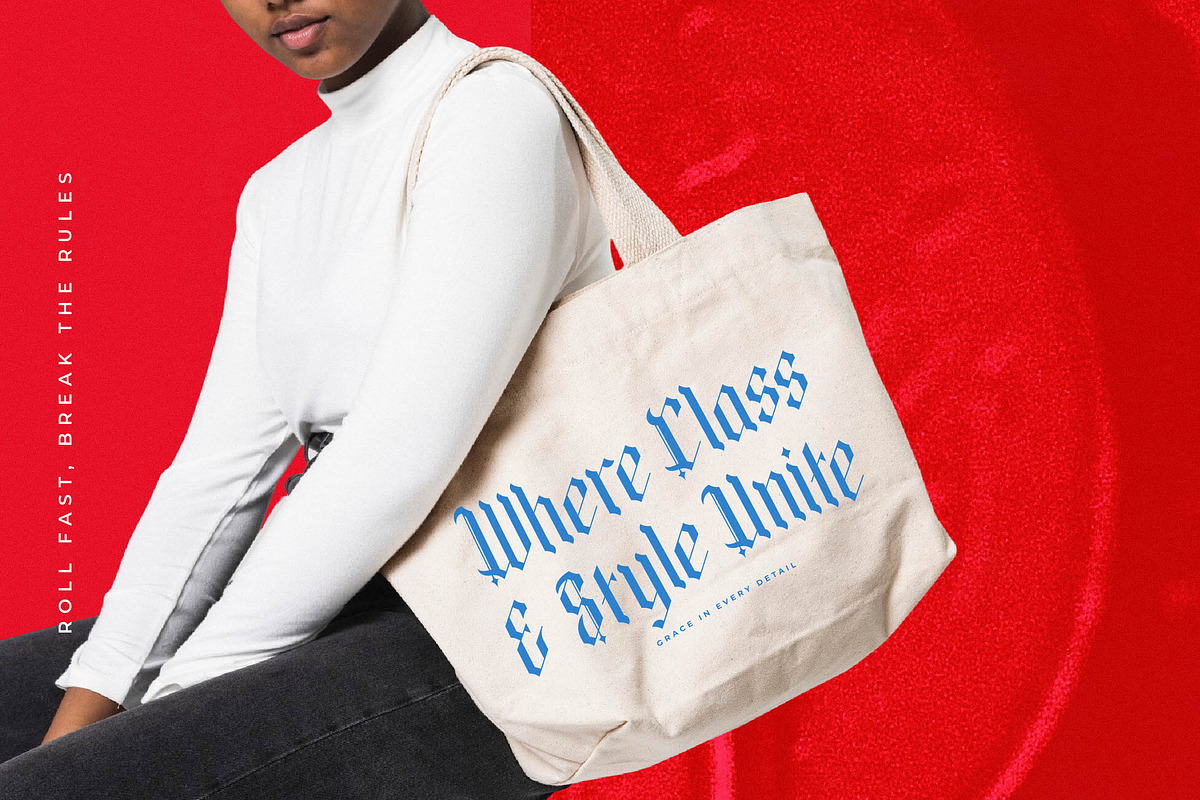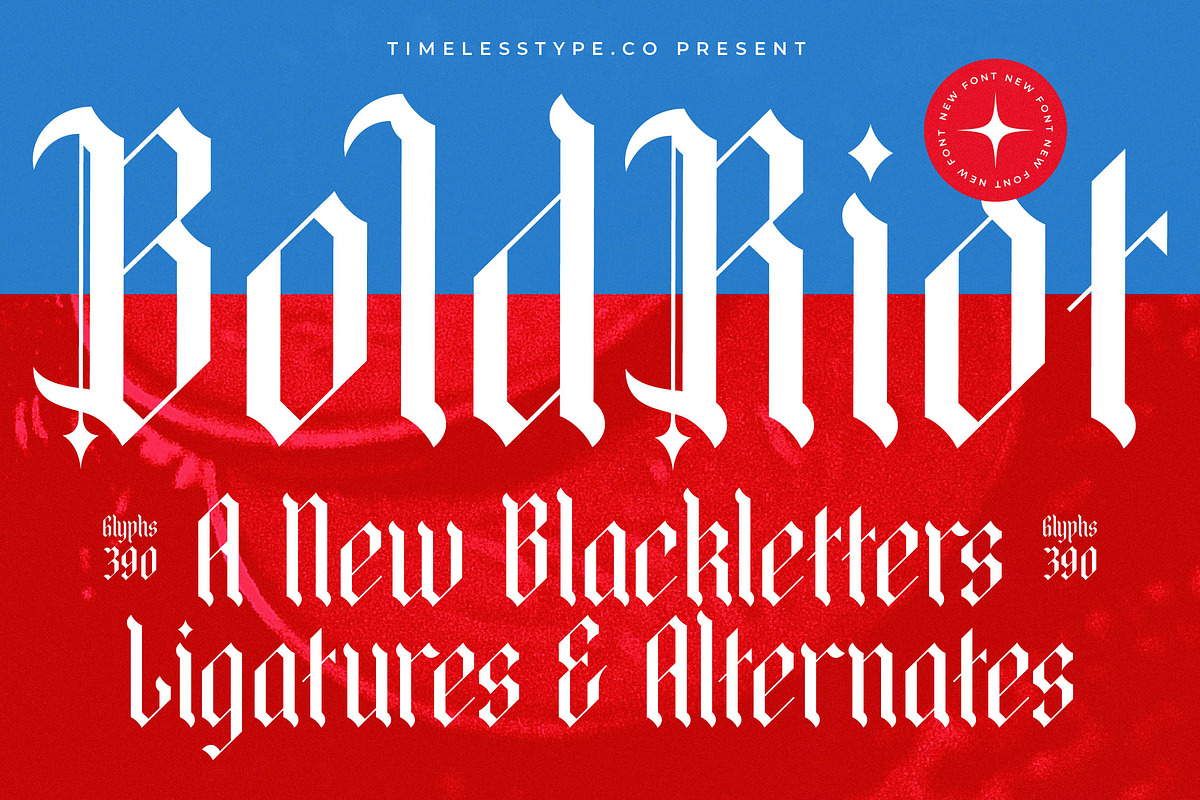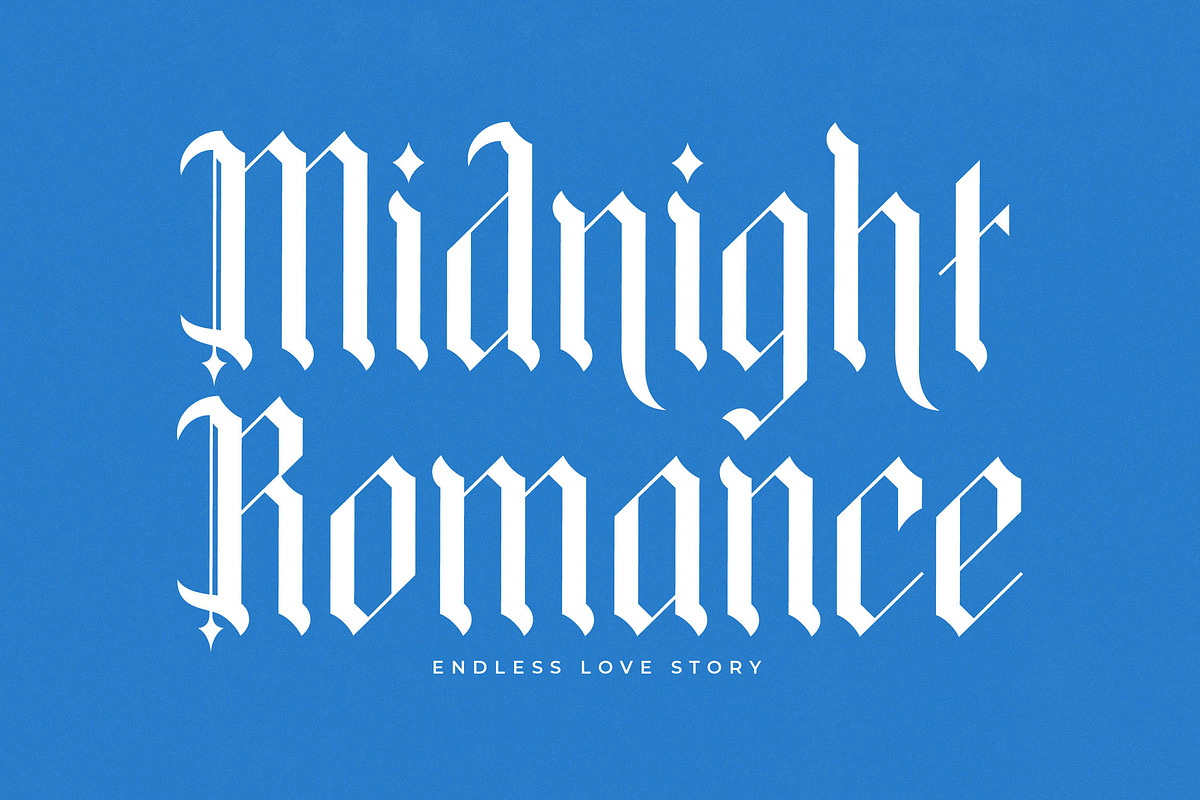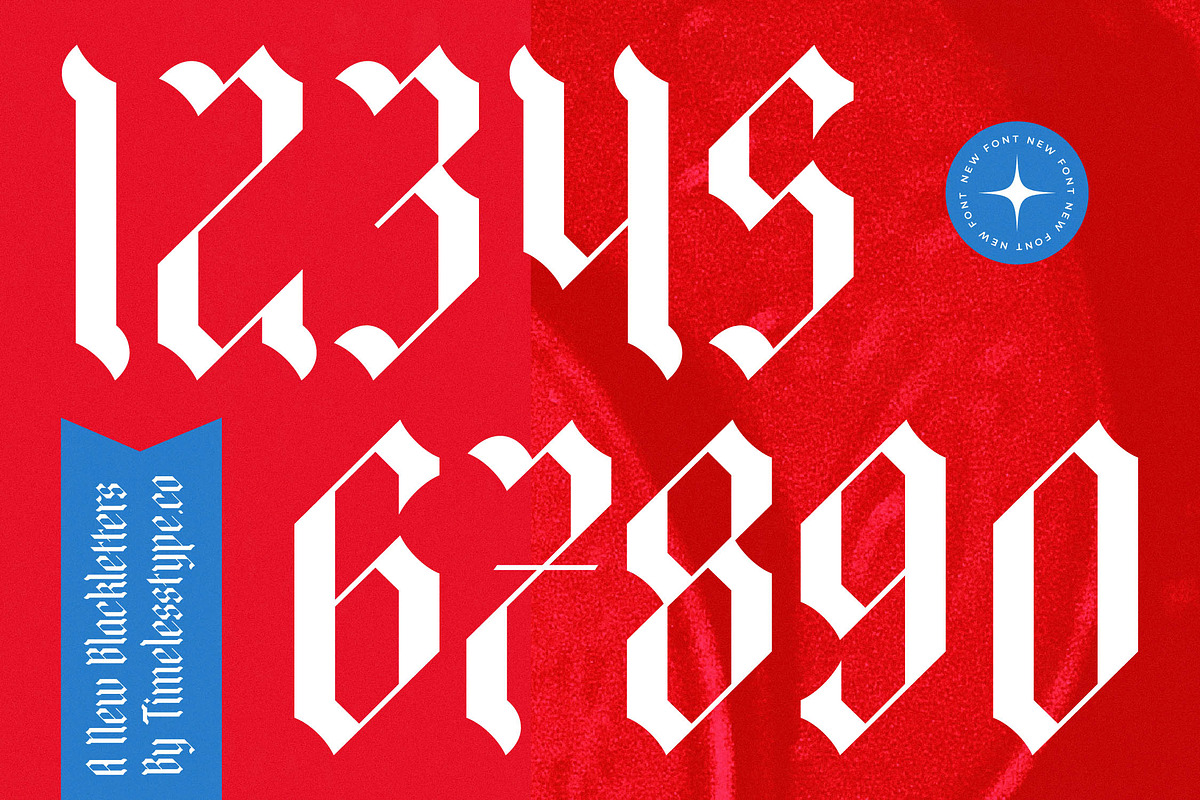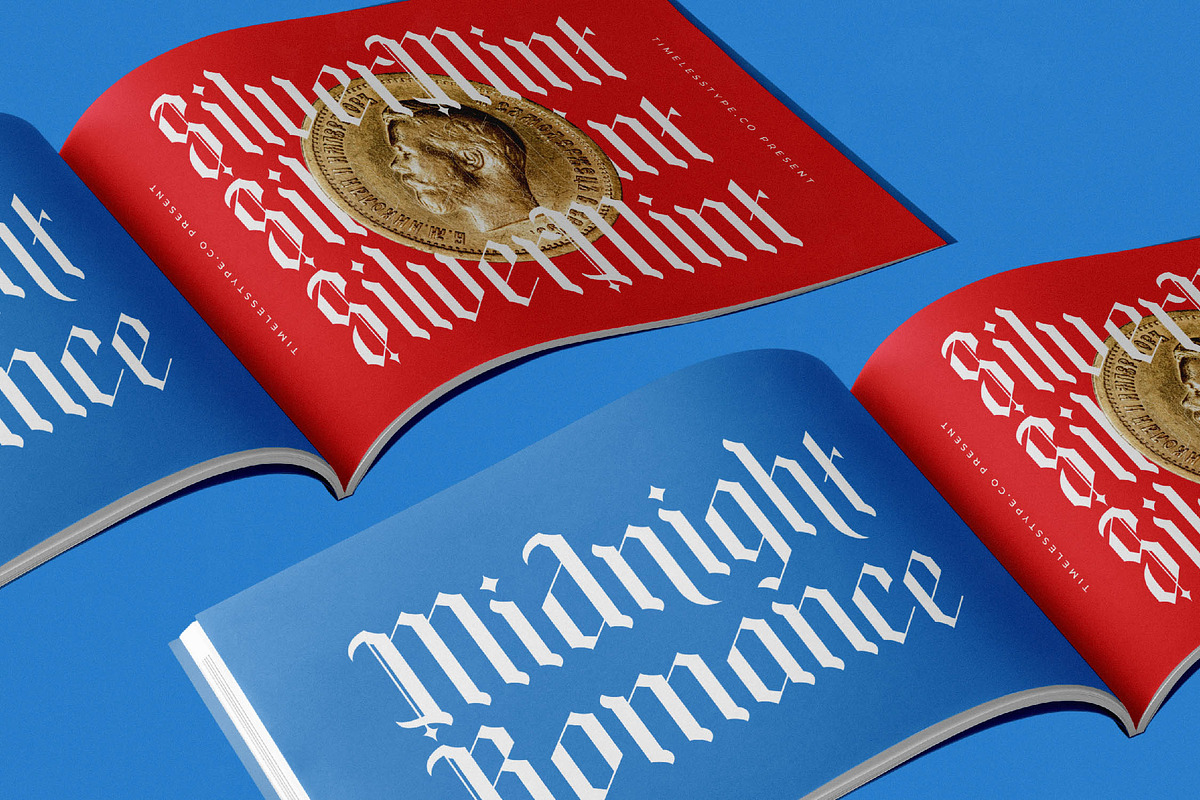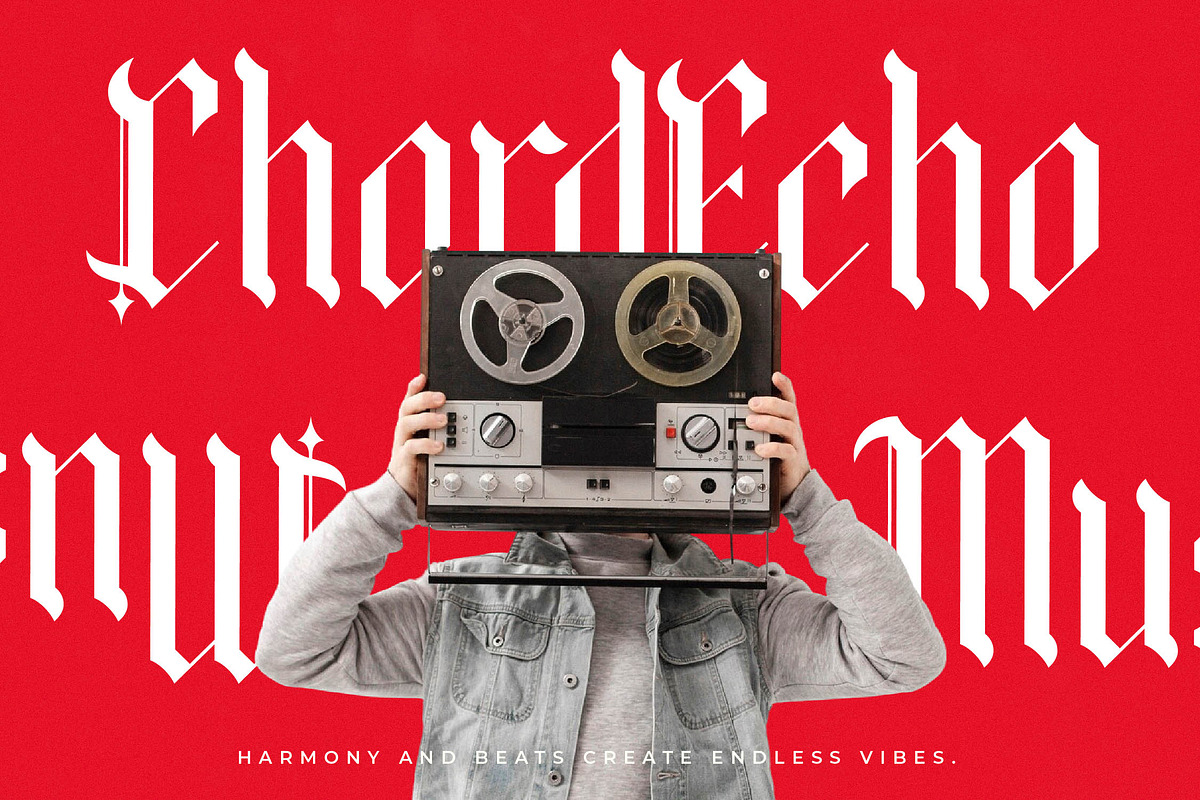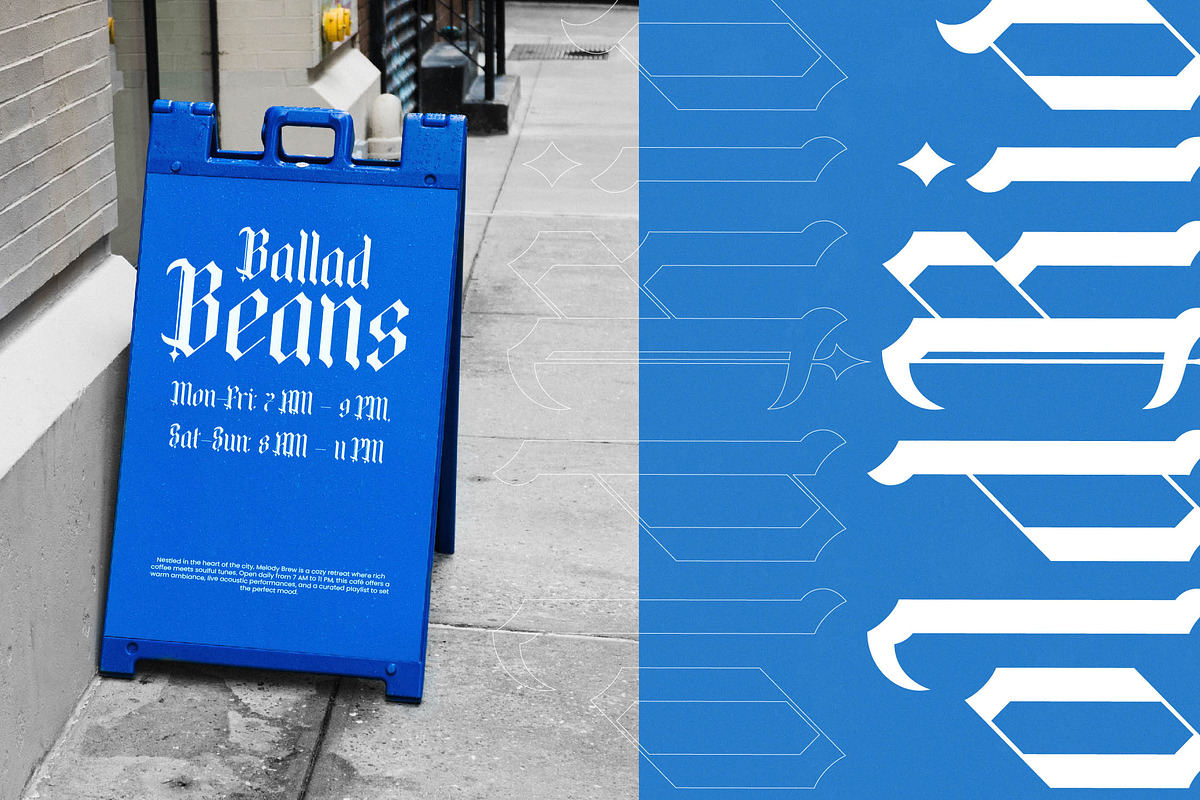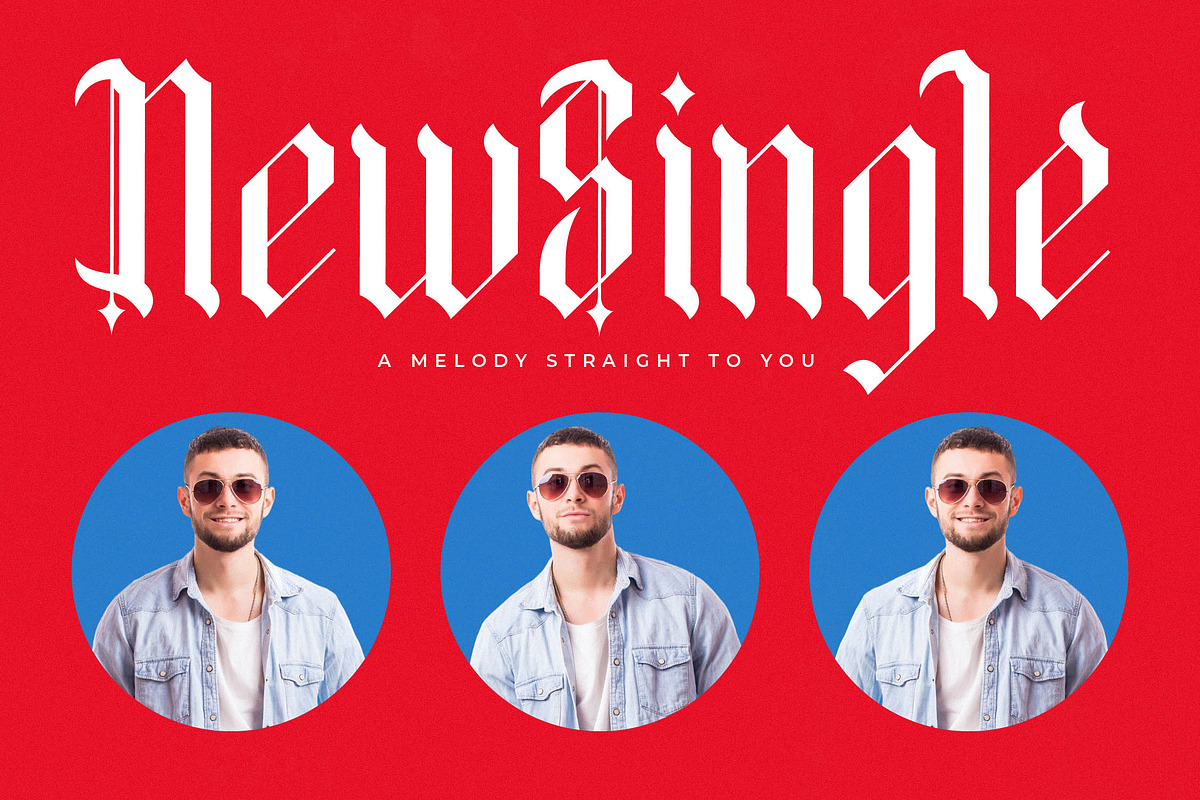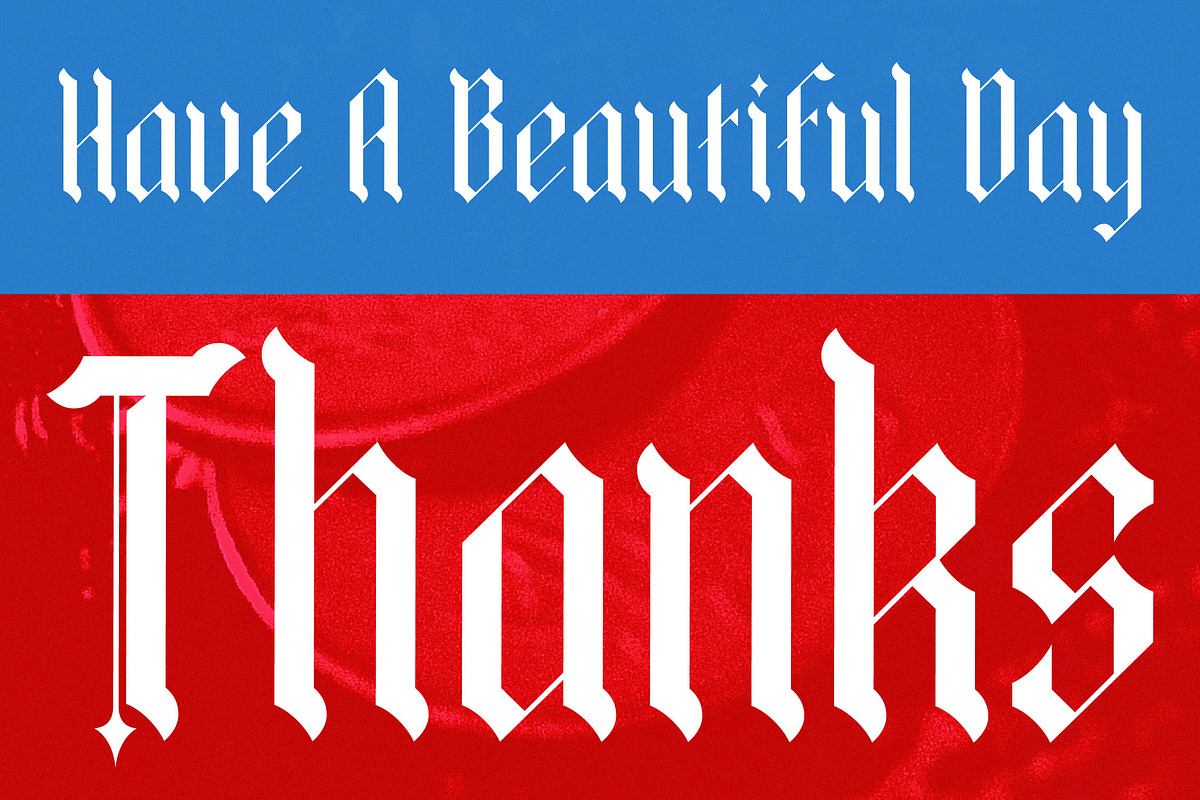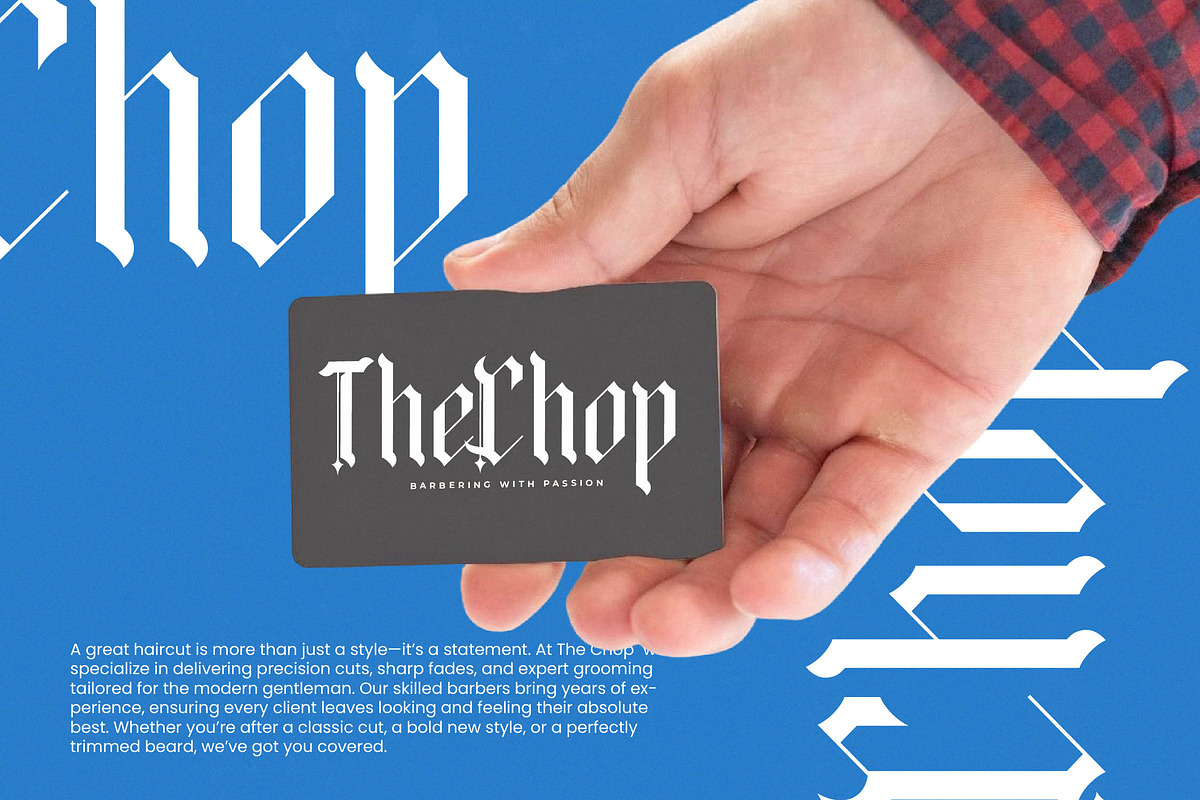
Bold Riot Modern Blackletter
Unleash a powerful visual statement with Bold Riot, a typeface that redefines traditional boundaries with contemporary edge. This font isn't just a set of characters; it's a defiant roar for designers seeking to make an unforgettable impact.
Drawing deep inspiration from the raw energy of urban street culture and the timeless structure of medieval calligraphy, Bold Riot blends history with a chaotic, modern spirit. It captures the essence of a concrete jungle where classic elegance meets underground rebellion.
The personality of this modern serif display is defined by its sharp, aggressive strokes and its undeniable branding impact. It offers a luxury typography feel that remains grounded in subculture, making it a perfect editorial font for projects that demand a high-contrast serif intensity.
As the modern serif trend continues to dominate high-fashion and music aesthetics, this typeface fits perfectly into the current landscape of character-driven typography. It is one of those editorial display fonts that balances legibility with extreme stylistic flair to stay ahead of the design curve.
Ideally suited for high-impact logo design and bold branding projects, Bold Riot excels in the worlds of packaging, fashion, and music industry editorial work. Whether it’s for a streetwear label or a daring wedding invitation suite, it delivers a unique, prestigious look.
This comprehensive typeface includes over 390 glyphs, featuring a wide array of unique ligatures and creative alternates including stylish swashes to customize your look. With full multilingual support and a vast set of international characters, it ensures your message resonates globally without losing its decorative edge.
- Ligature 12 Alternate 48